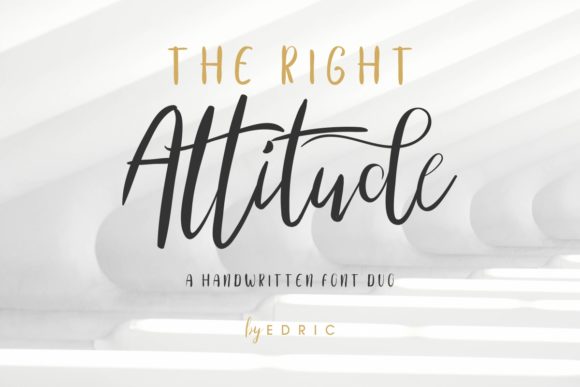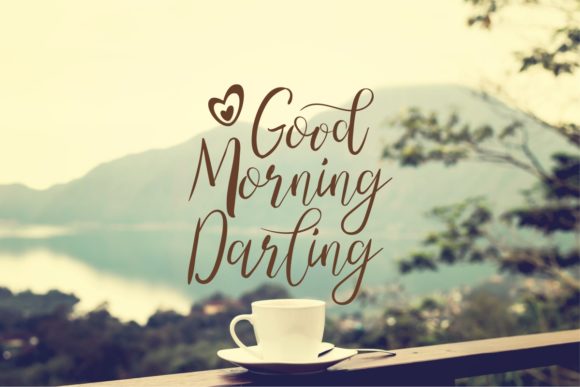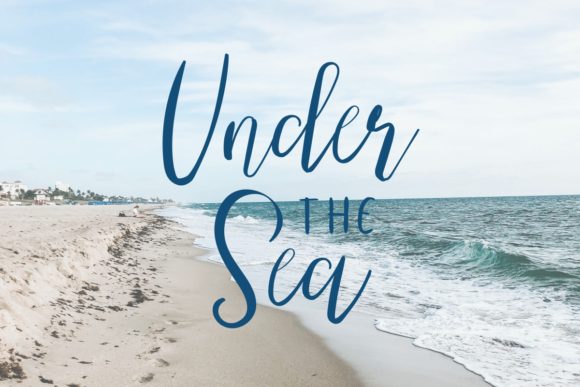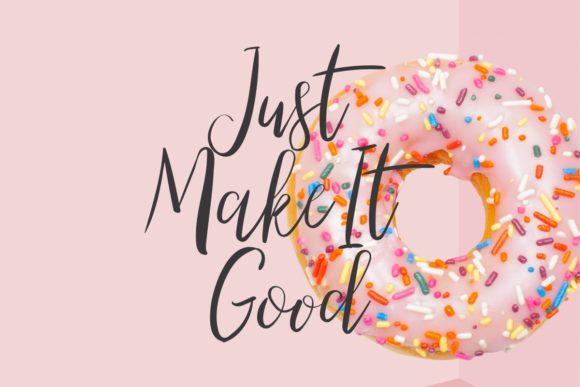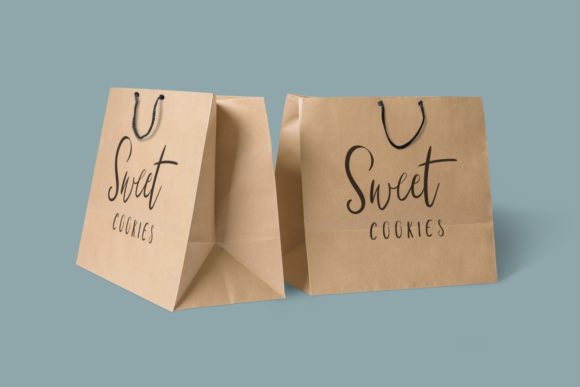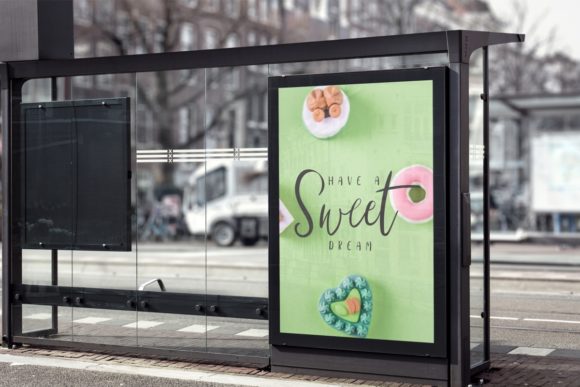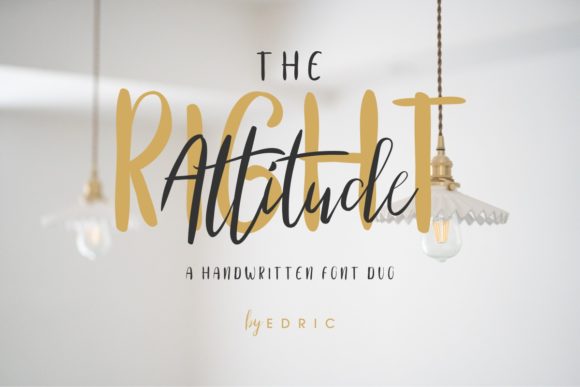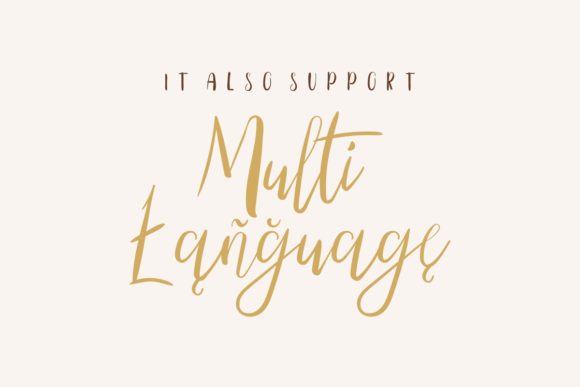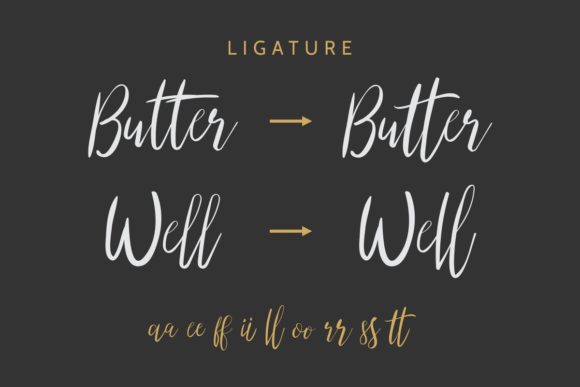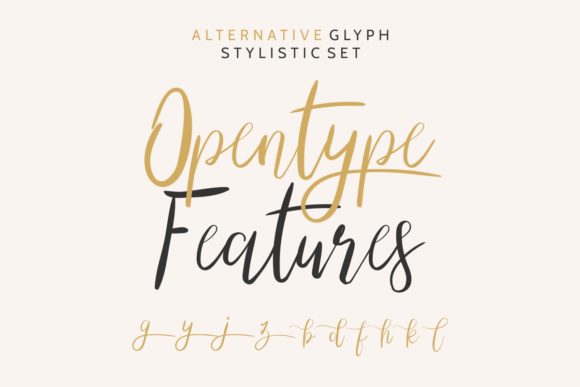
The Right Attitude Duo Font
About The Right Attitude Duo Font
The Right Attitude is a stunning font duo that combines a great script and modern sans serif font into one truly original set.